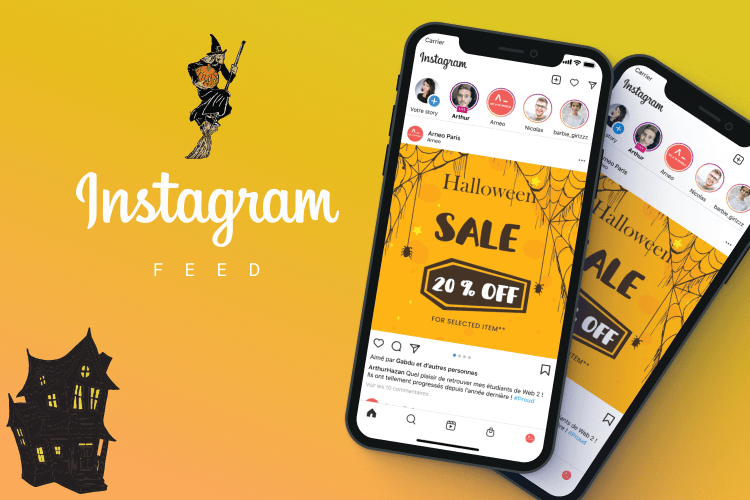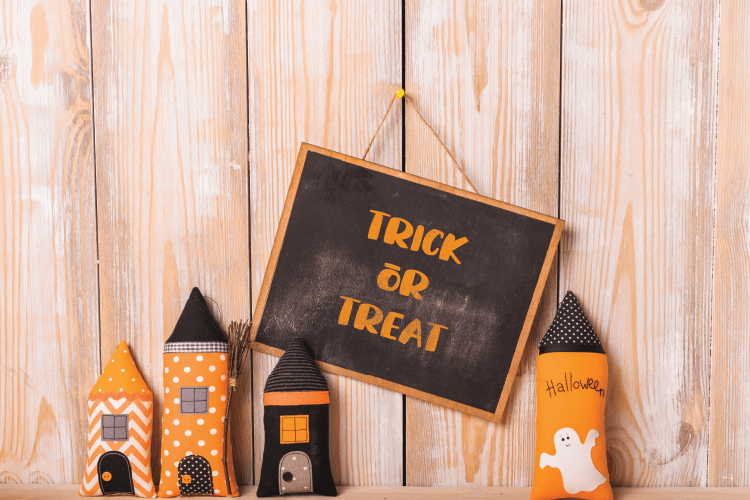
Witchy Winky Font
Witchy Winky Display Font
It’s a cute Halloween Font. looks bold and solid. Very suitable for headline, logotype, apparel, invitation, branding, packaging, advertising etc.
This typeface contains beautiful decorative ornaments that are ready to use to create a Halloween design theme. It also comes in uppercase, lowercase, punctuations, symbols & numerals. It also supports multilingual and is already PUA encoded.